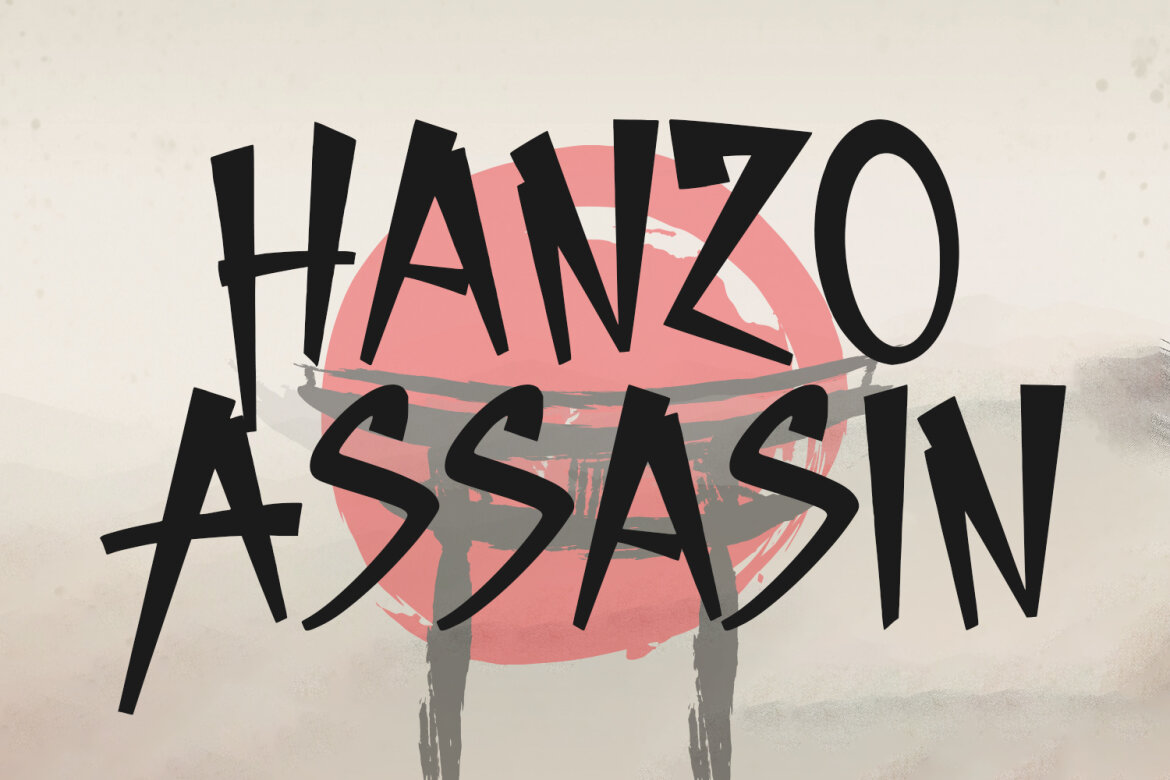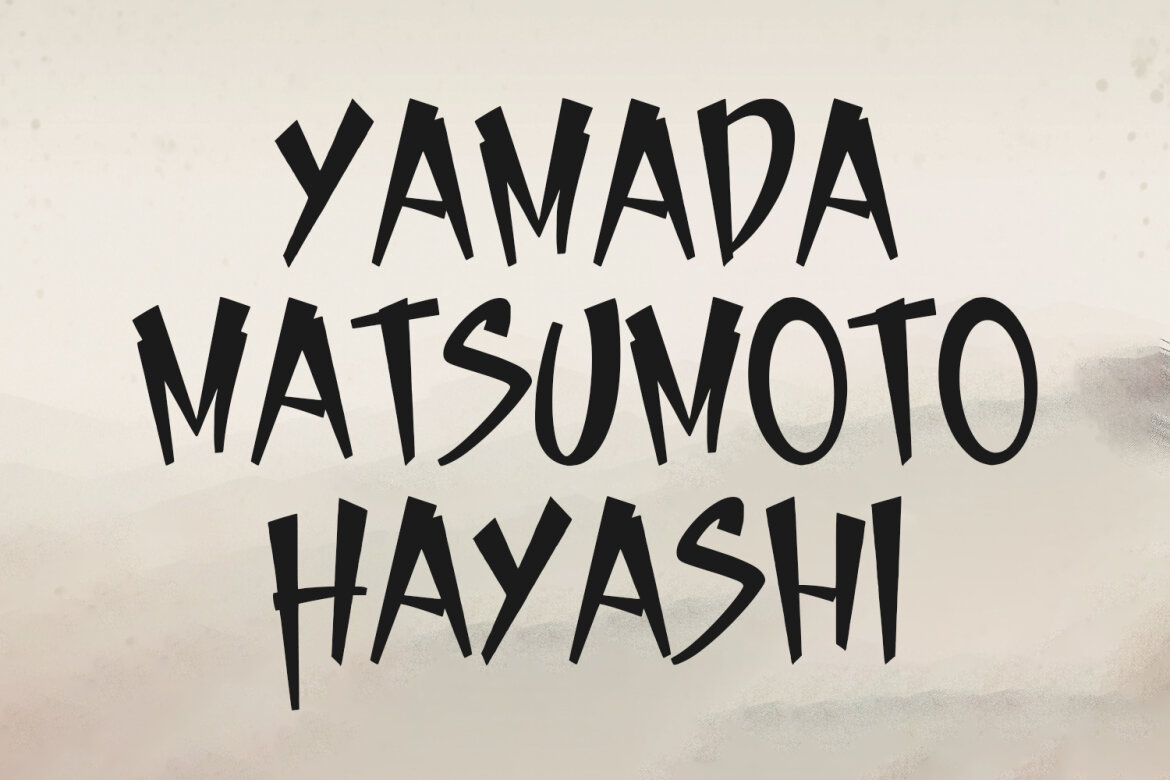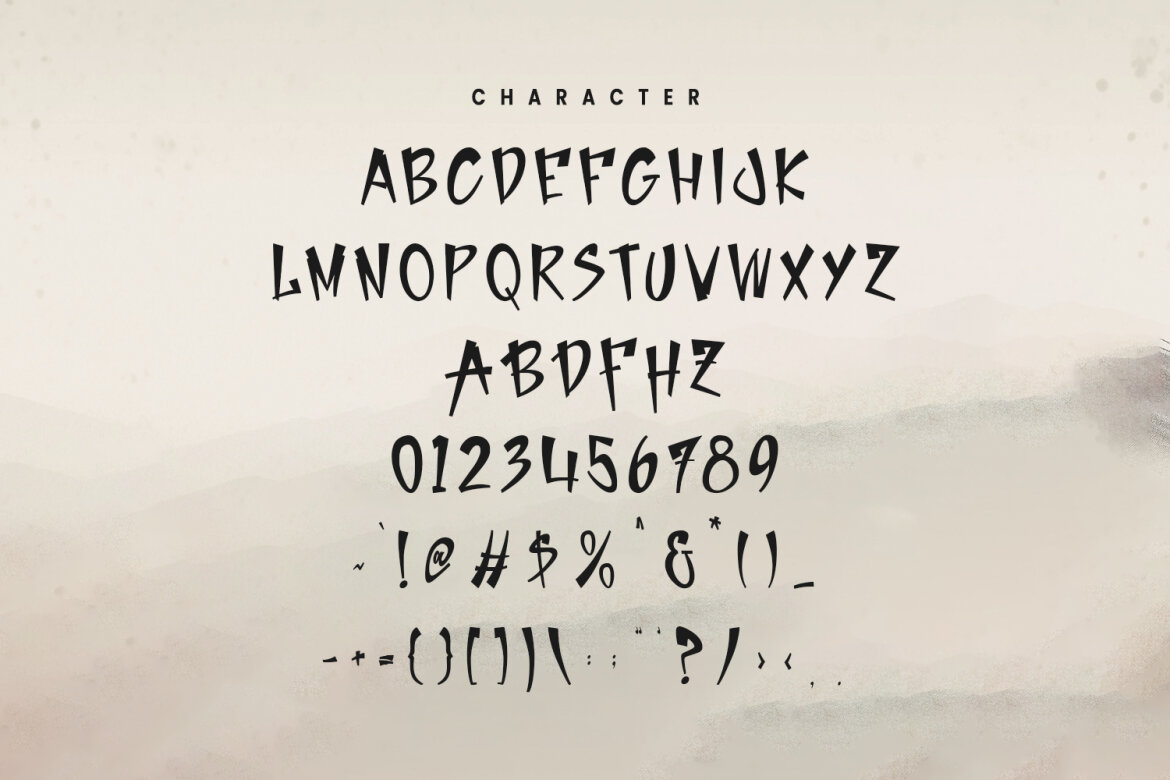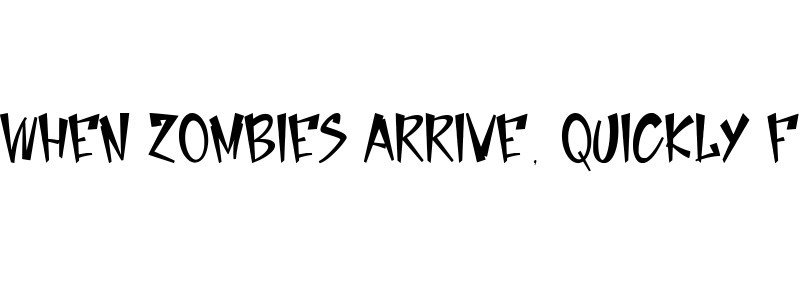
Fushijin FREE Japanese Font
Fushijin
Give your designs an authentic brush handcrafted feel. “Fushijin” is perfectly suited to japanese style, stationery, logo, typography quotes, website header, branding and more.